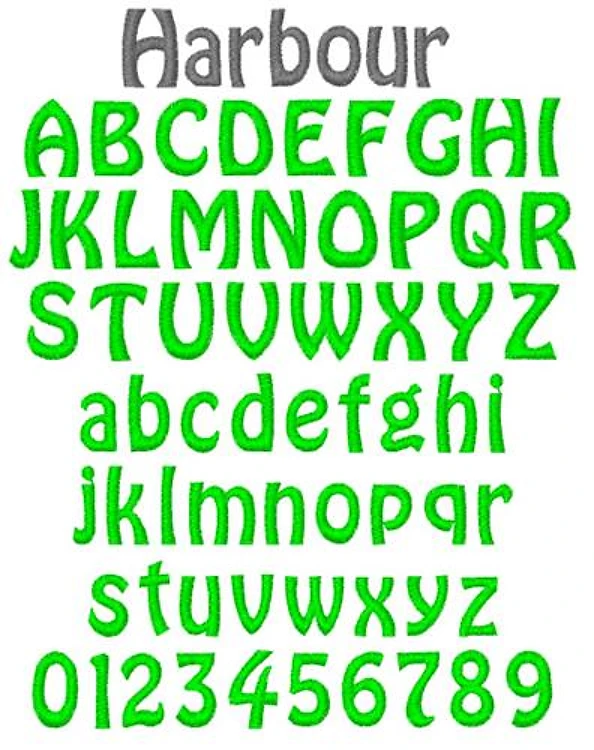
Internet Stitch is happy to present Harbour Embrilliance machine embroidery font which has Stylized machine embroidery font with a soft textured appearance, suitable for pillows and decorative accents. Offered in BX font and Embrilliance formats. included. If you would like to view more embroidery fonts and alphabets please search our embroidery fonts page.